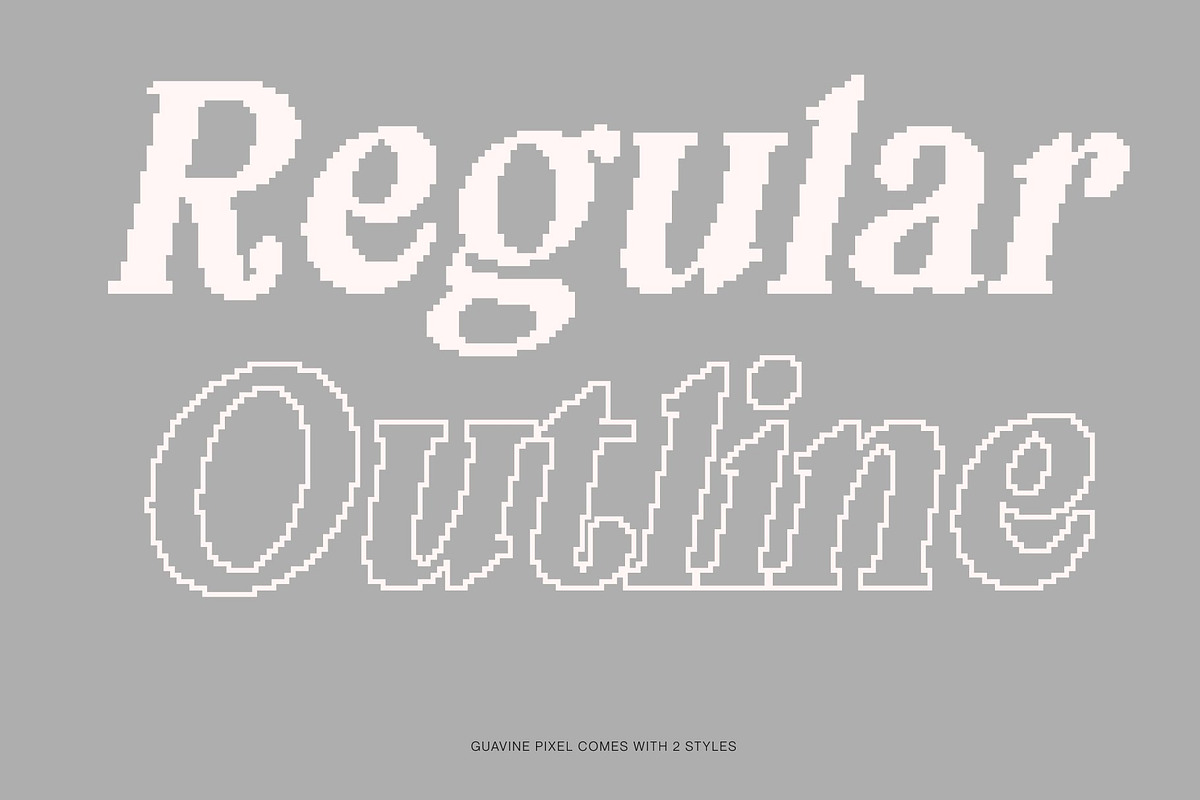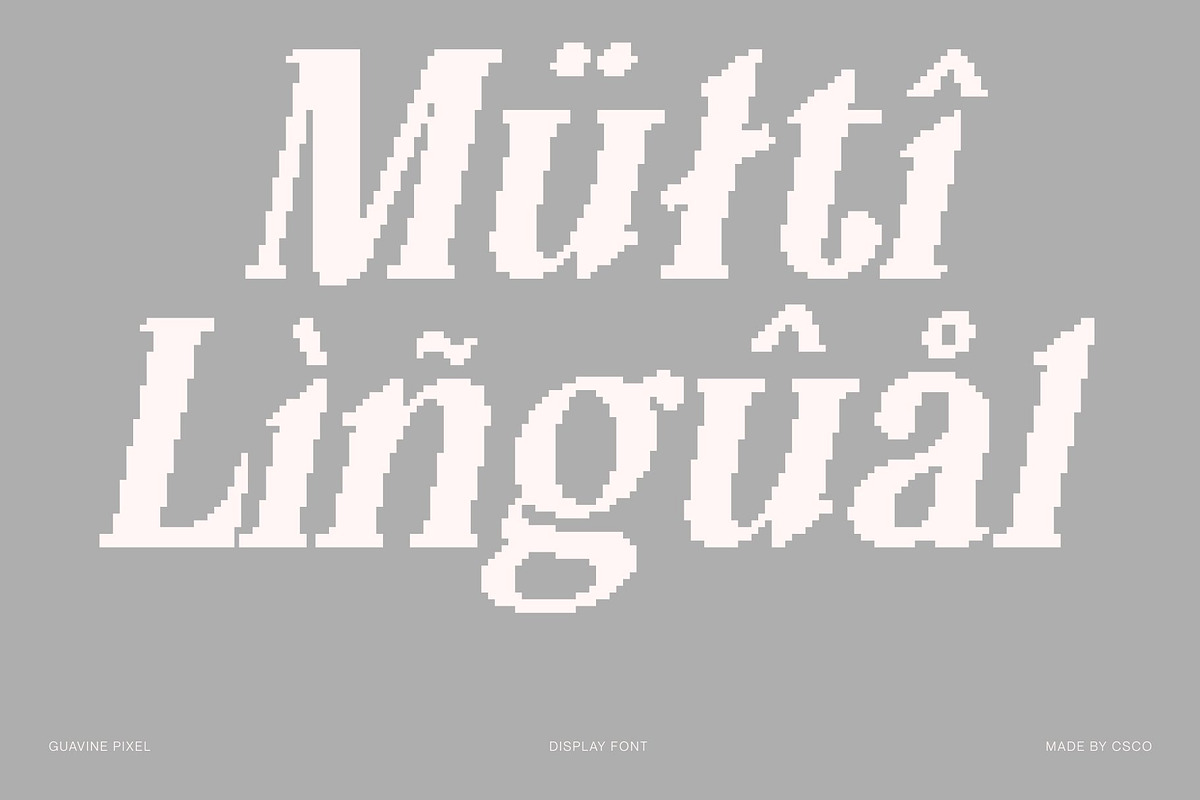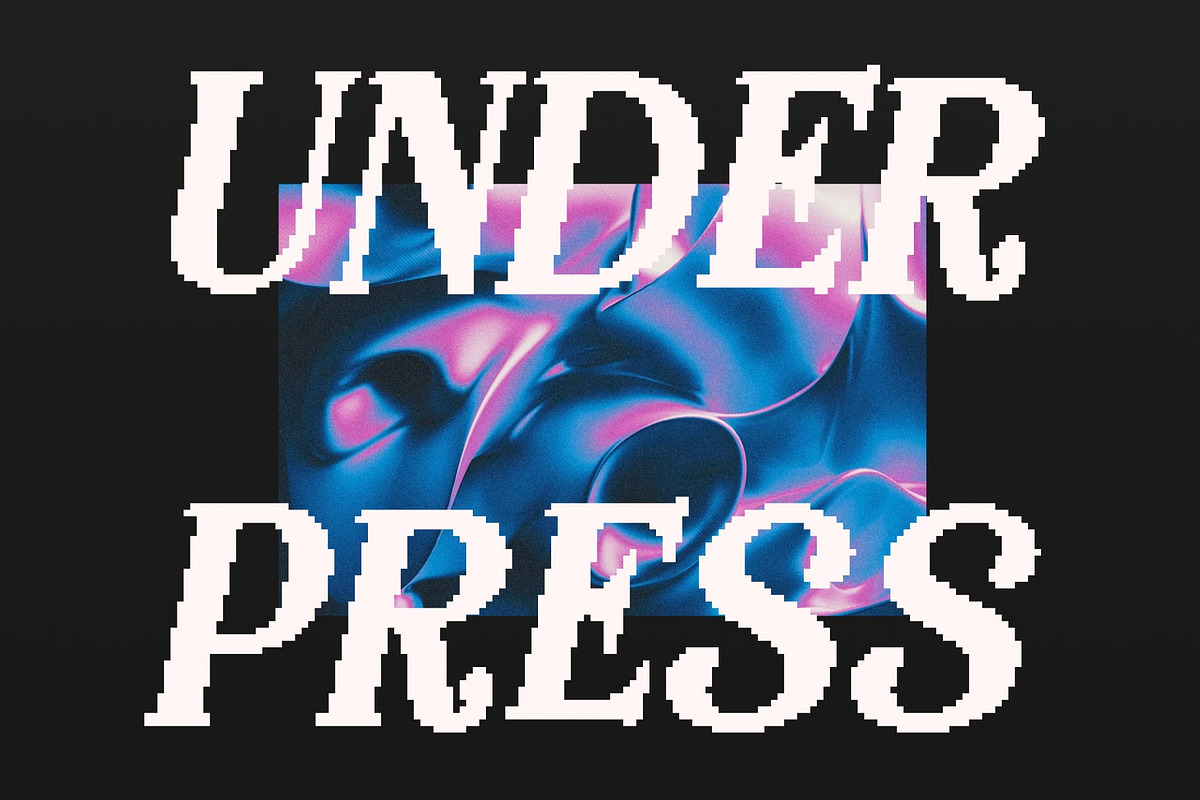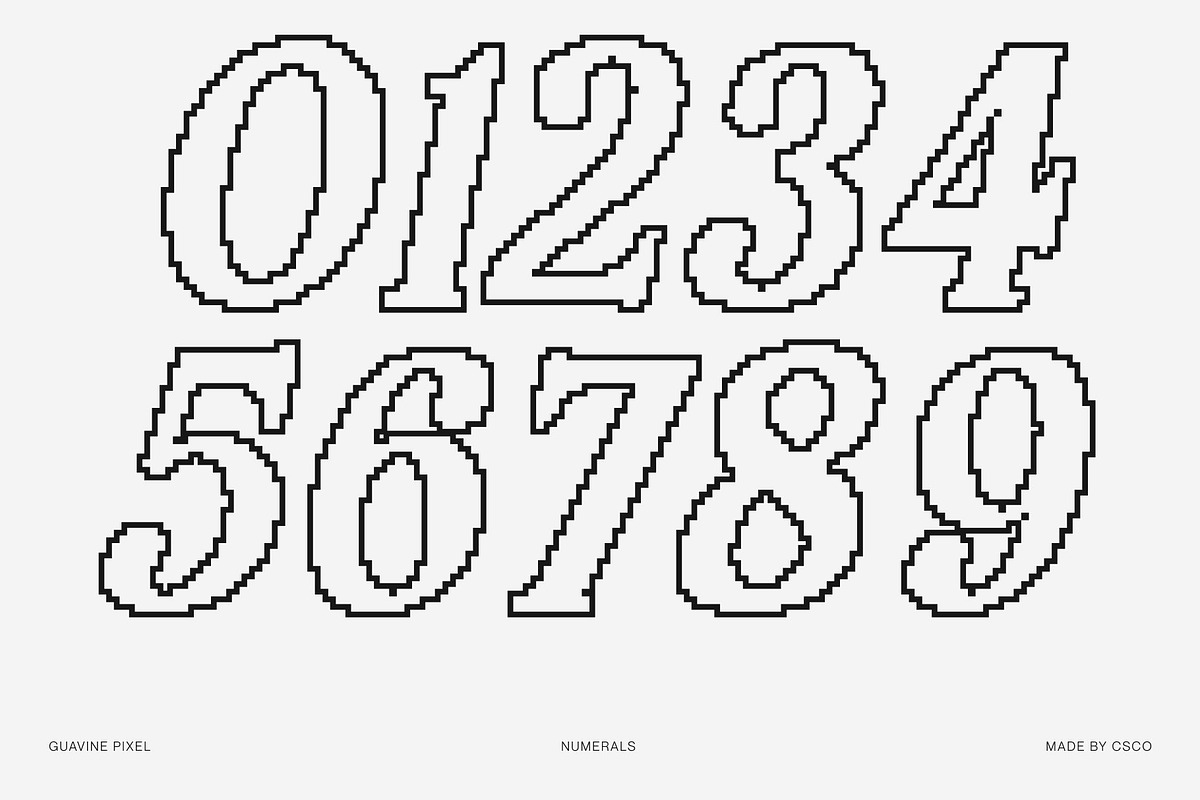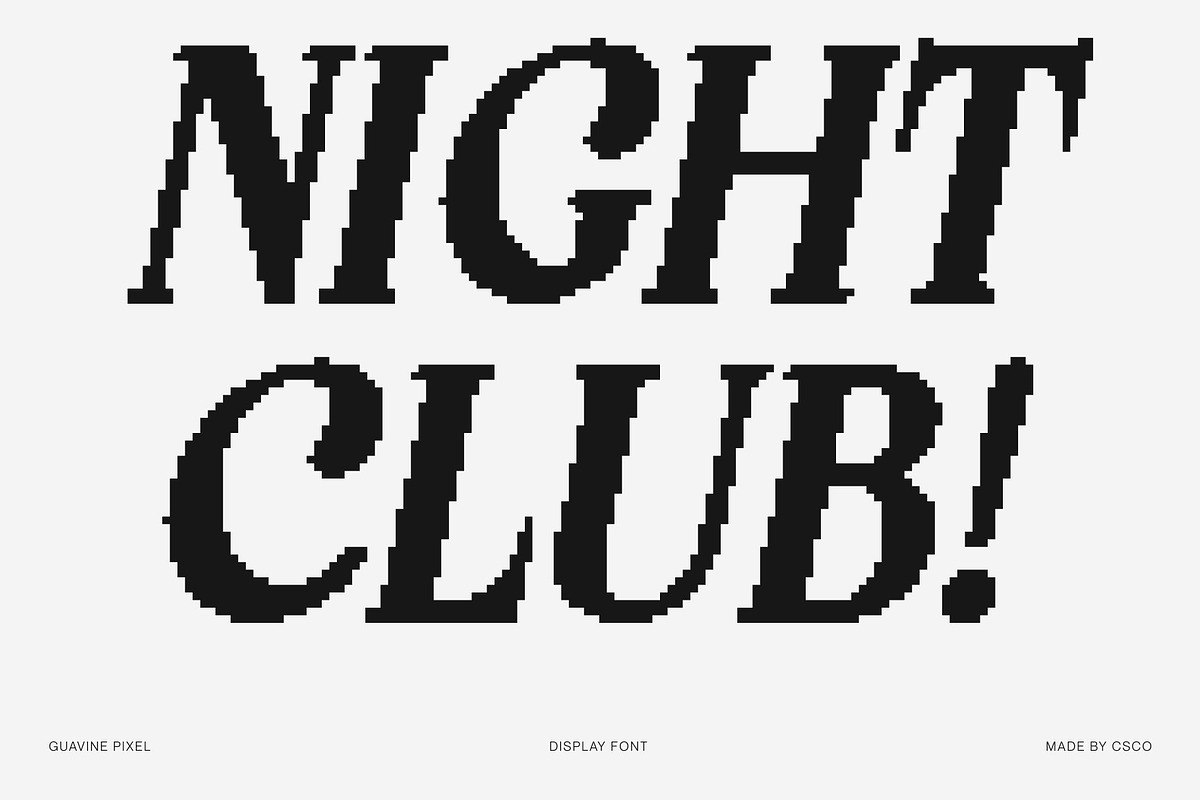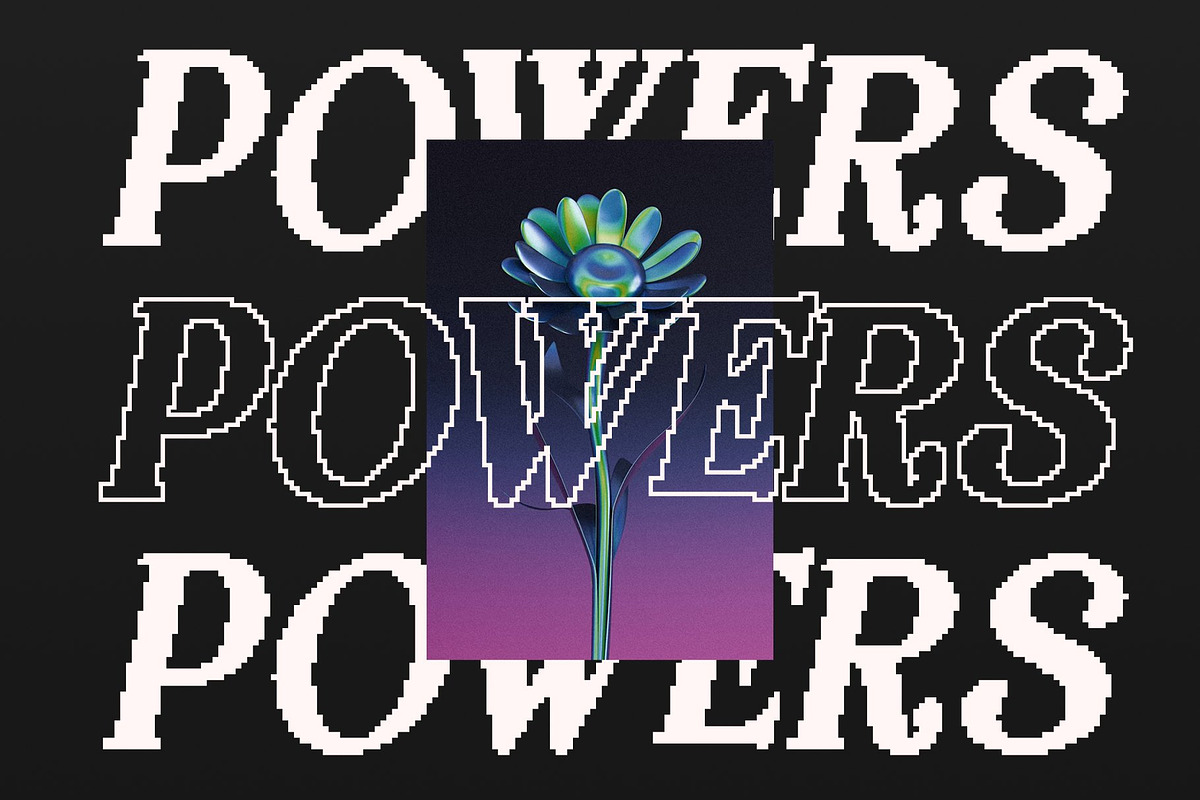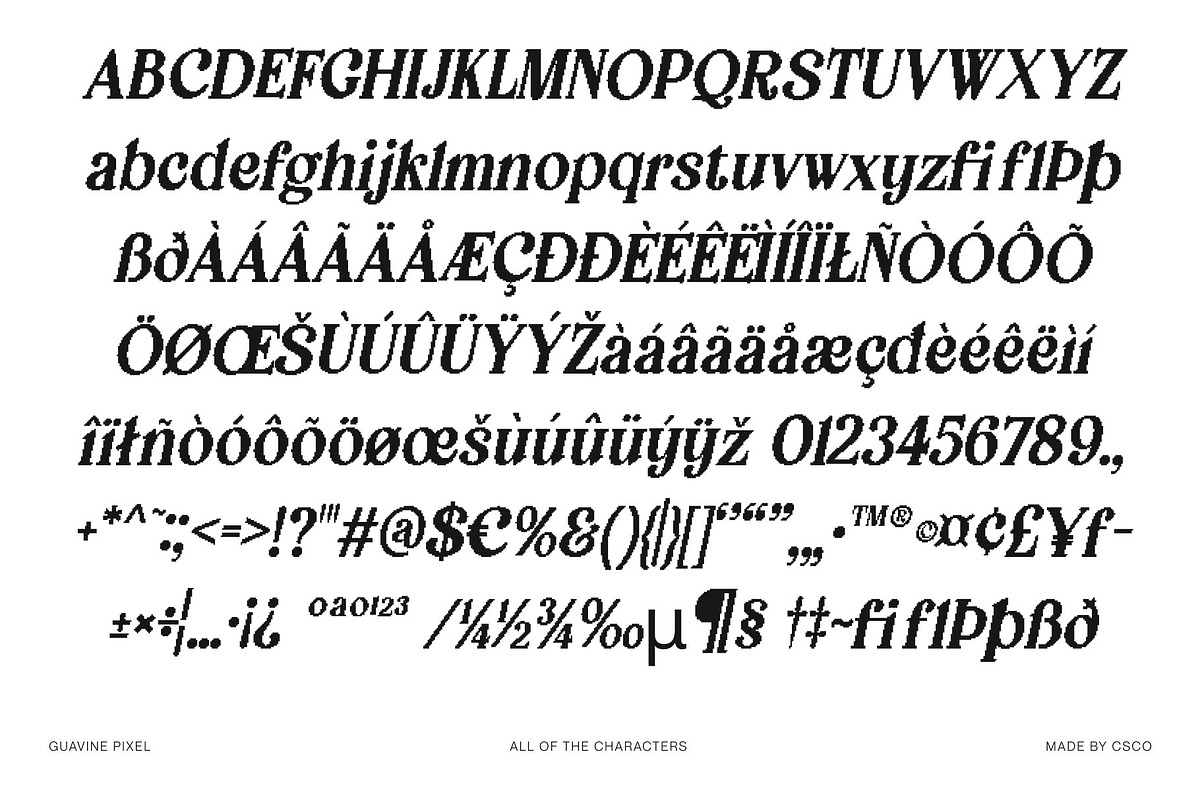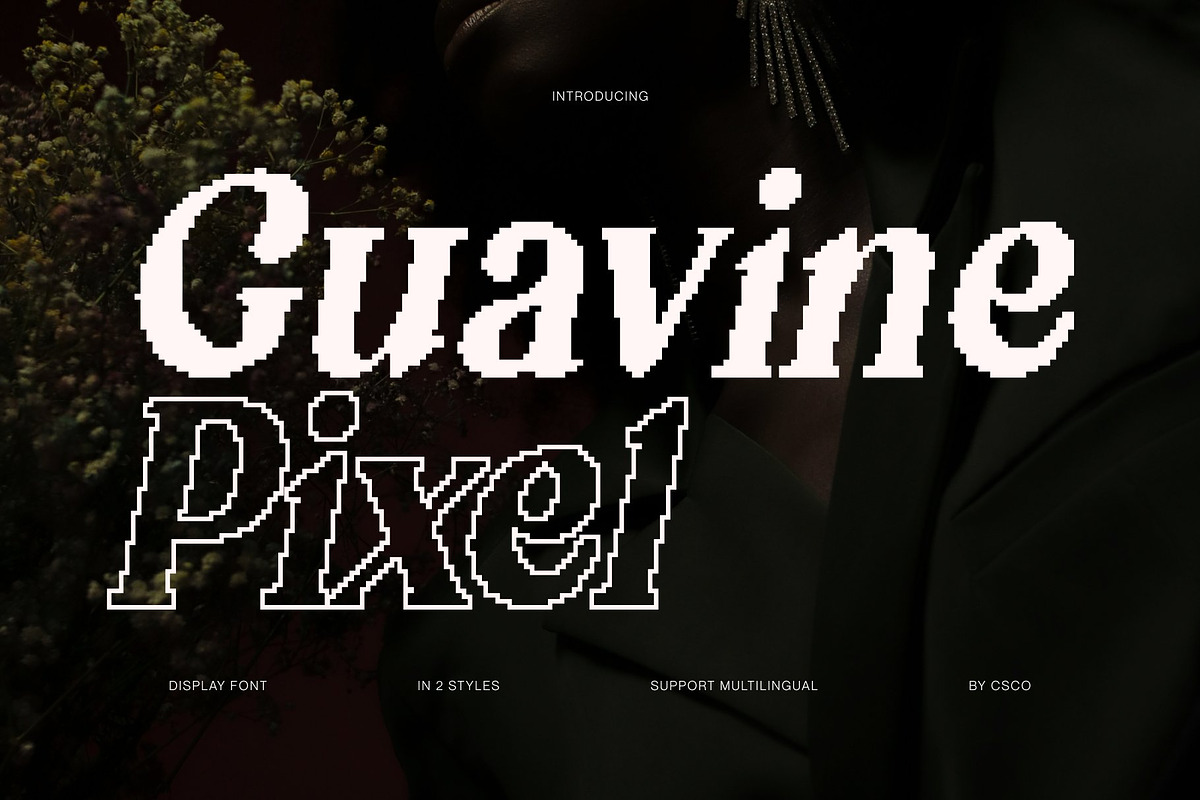
Guavine Pixel
Guavine Pixel – Retro Pixel Display Font with 8-Bit Energy
8-Bit Charm with Dynamic Modern Flair Evoking the nostalgic spirit of pixelated graphics, this retro display font brings the digital world of early video games to life. Its sharp pixel construction and bold retro shapes create an energetic, modern interpretation of classic 8-bit style. Each character feels lively and dynamic, capturing the excitement and simplicity of vintage digital design.
Pixel Structure for Bold Digital Expression With its pixel-driven form, the font delivers a unique visual texture that instantly communicates digital nostalgia. The combination of retro silhouettes and pixel precision makes it both playful and visually striking perfect for designs that want a modern twist on classic computer and arcade aesthetics.
Perfect for Party Posters, Nostalgic Branding, and Funky Headlines This font thrives in bold display settings such as party posters, retro gaming events, nostalgic branding, t-shirt graphics, album covers, and funky, expressive headlines. Its strong digital personality ensures your design stands out while maintaining a fun and approachable vibe.
Energetic, Retro, and Digitally Distinct Blending the charm of pixelated graphics with modern dynamism, this font offers a vibrant and memorable typographic style. It’s the ideal choice for designers who want to celebrate early digital culture while presenting it in a fresh, exciting, and creatively bold way.
- Guavine Pixel Regular
- Guavine Pixel Outline